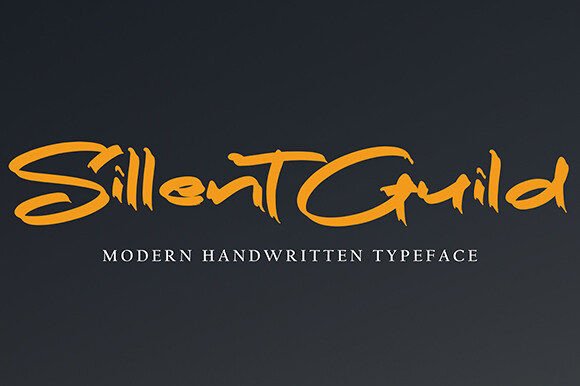
Step into the enchanting world of Sillent Guild, a script font family that dances across your designs with bold strokes and a deliciously rebellious flair. This stunning typeface is the brainchild of the creative duo, Pineungtype and Missinklab, who have poured their passion into creating a font that breaks the chains of convention and inspires you to make a statement. It is a beautiful font for your wedding invitation needs.
With its untamed strokes and chaotic charm, Sillent Guild breathes life into your projects, adding a touch of spontaneity and creative energy that is sure to leave a lasting impression. Its distinct character shines through in every letterform, giving your designs a rebellious edge that sets them apart.
But don't be fooled by its wild nature, for Sillent Guild is also a font of endless versatility, capable of adapting to a wide range of projects. Whether you're designing wedding invitations, crafting logos, or creating social media graphics, this font has the power to elevate your work to new heights.
The font's PUA encoding makes it incredibly user-friendly, allowing you to effortlessly access its full range of glyphs and ligatures. This opens up a world of possibilities, enabling you to add intricate details and flourishes to your designs with just a few clicks.